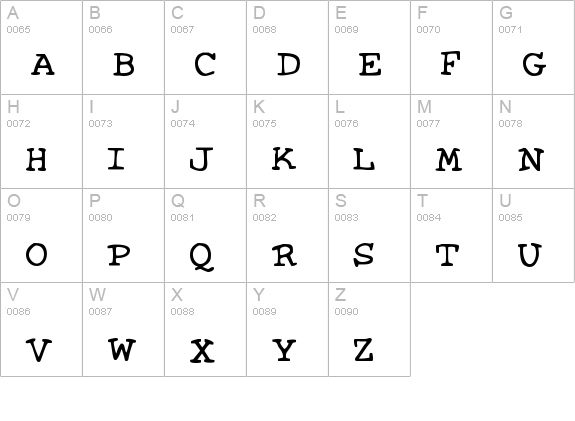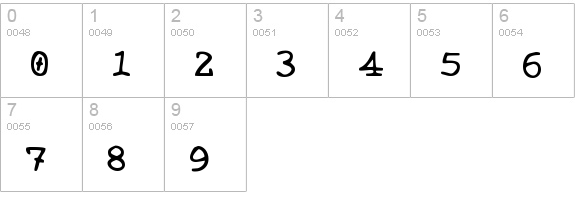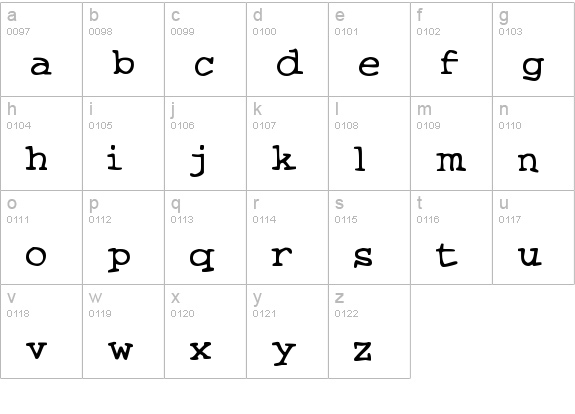
Knits and Scraps Font Details
Knits and Scraps font is a charming and unique typeface that captures the essence of handcrafted artistry. With its playful and whimsical design, this font is perfect for adding a touch of creativity to your projects. The uneven lines and imperfect shapes give Knits and Scraps font a cozy and homely feel, making it ideal for designs that want to convey a sense of warmth and comfort. Best of all, Knits and Scraps font is freely available to download at FontsMarket.com. Whether you're working on a DIY project, a scrapbooking layout, or a handmade card, this font is sure to bring a touch of handmade charm to your designs. Embrace the beauty of imperfection with Knits and Scraps font and let your creativity shine through!